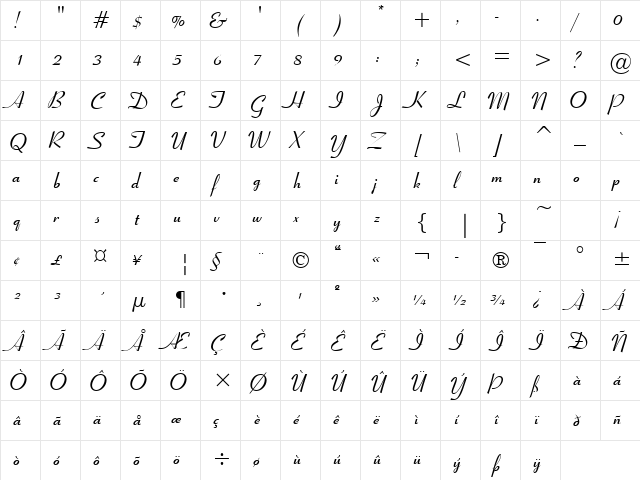
Pageant Bold Italic
Design Context for Pageant Typeface
Pageant is a composed and adaptable typeface that performs quietly and consistently across a wide range of design contexts. Its italic angle brings a sense of urgency and motion to the letterforms. The heavy weight commands attention and anchors typographic hierarchies.